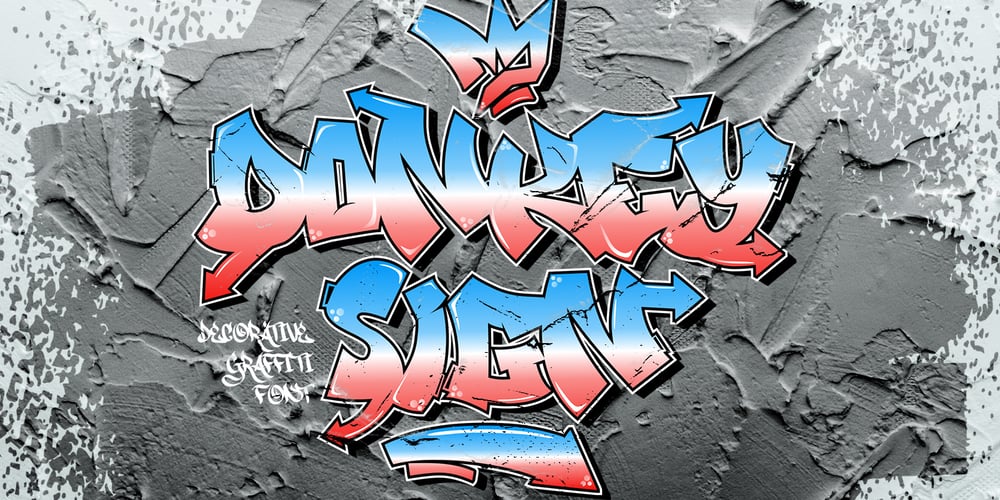
Donkey Sign Graffiti Font Family was designed by Sipanji and published by Sipanji21. Donkey Sign Graffiti contains 1 styles and family package options. Donkey Sign is a spectacular decorative font with a Graffiti style and with a sign decorative inside for your design look awesome. It will elevate a wide range of design projects to the highest level, be it branding, headings, wedding designs, invitations, signatures, logotype, wall art illustration, apparel, labels, and much more.